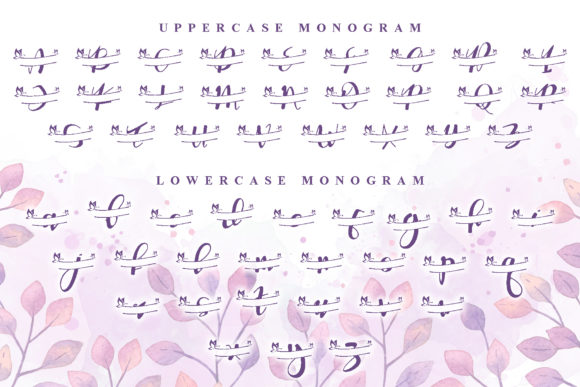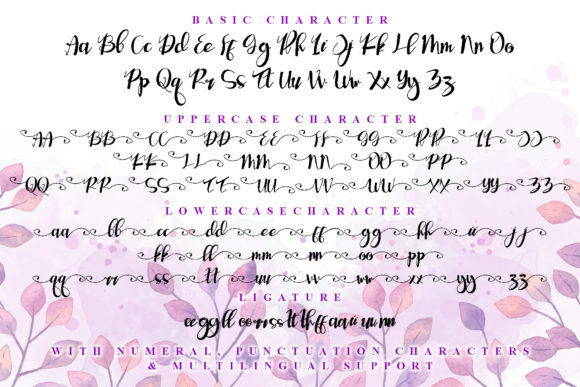
About Vennesia Font
Vennesia is a sweet handwritten font. Fall in love with its authentic feel and use it to create gorgeous social media posts, wedding invitations, beautiful stationary art and much more! It also features a wealth of special features including alternate glyphs and ligatures. This font is PUA encoded which means you can access all of the cute glyphs and swashes with ease! Whether you’re looking for fonts for Instagram or calligraphy scripts for DIY projects.